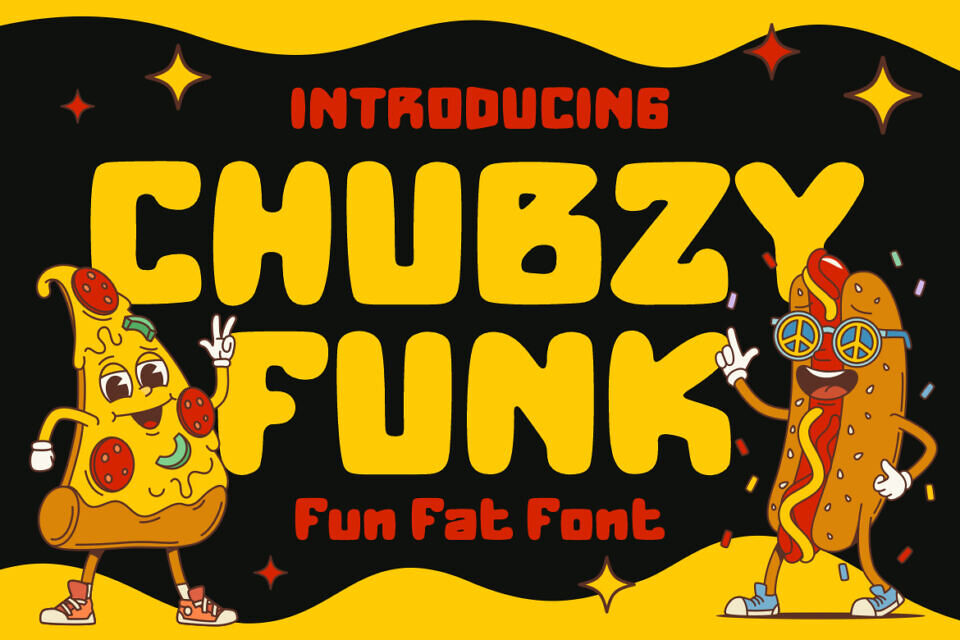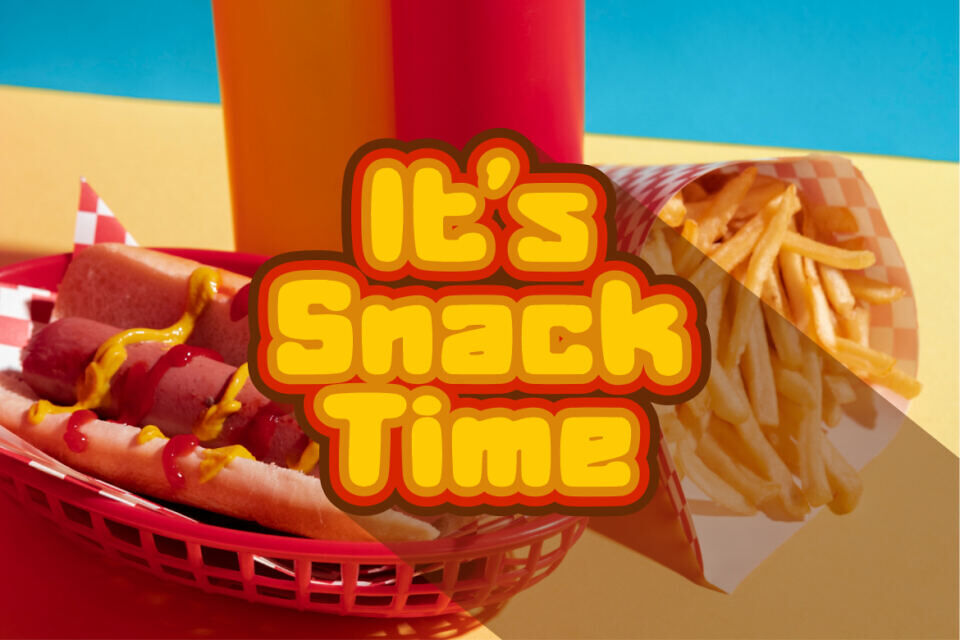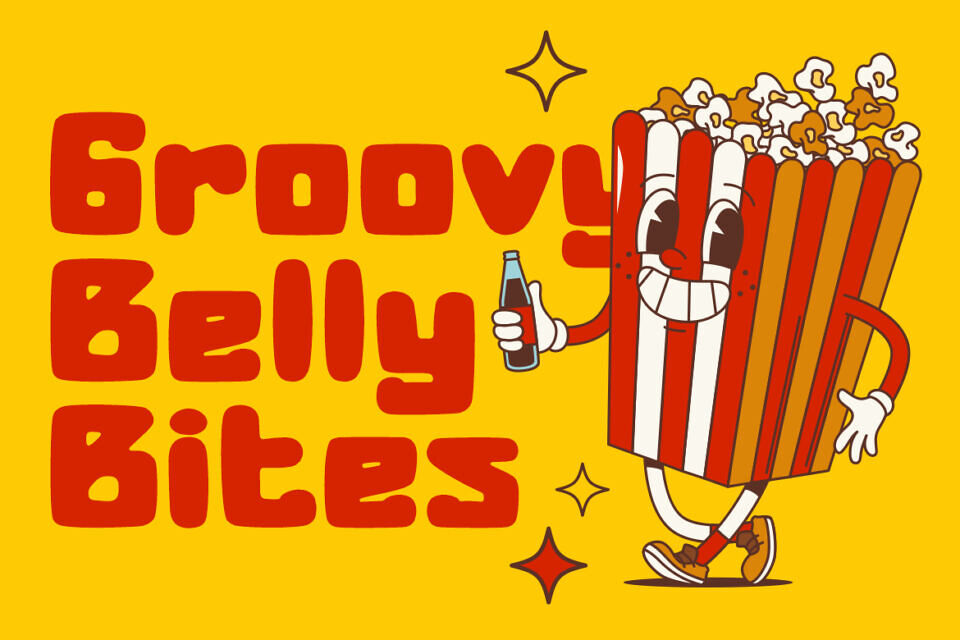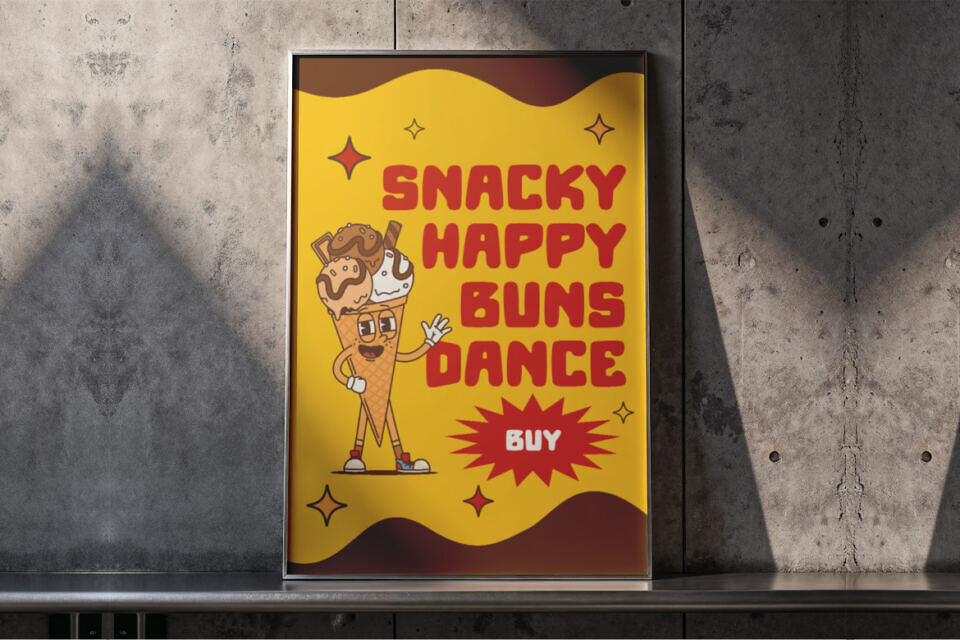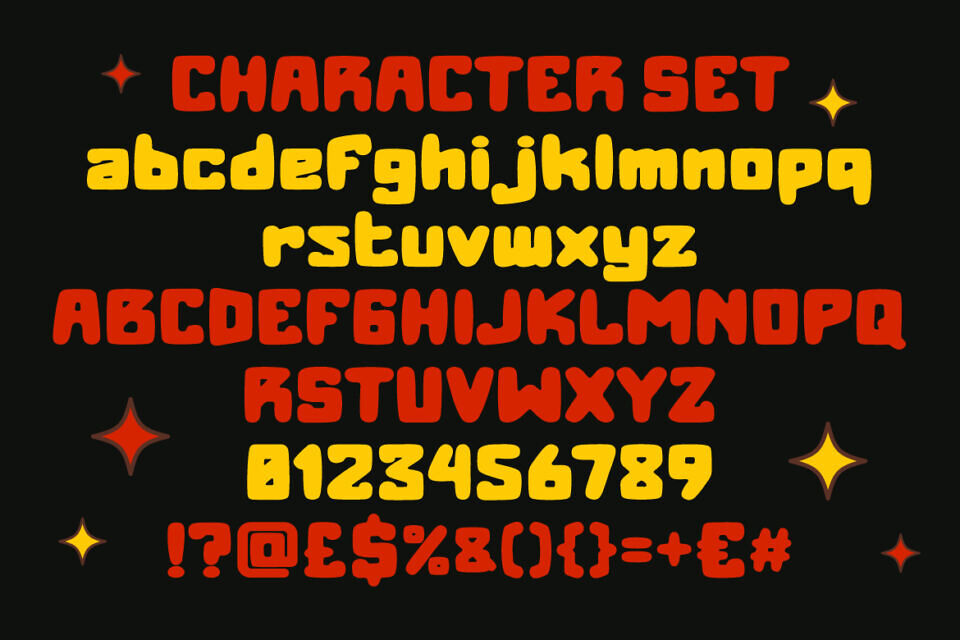
Chubzy Funk is a lively, rounded font that embodies the spirit of street food and retro pop culture. Its chunky, soft-edged design exudes warmth and joy, with a consistent rhythm that grabs attention. Suitable for food projects, kids’ branding, and quirky merchandise, this font balances playfulness with excellent legibility thanks to its thick lines and smooth corners, making it perfect for informal, fun designs.
Chubzy Funk works brilliantly across various creative applications, especially in logo design, snack packaging, poster headlines, T-shirt graphics, birthday invitations, comic-style branding, and product labels. Its fat and funky layout makes it ideal for designs where personality and visual punch are key.